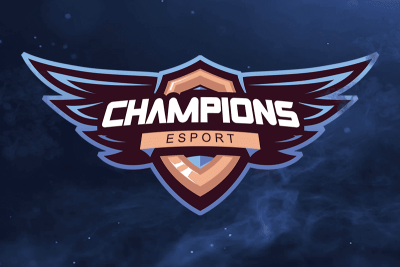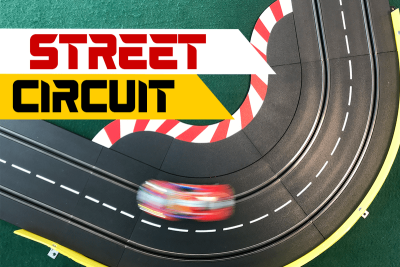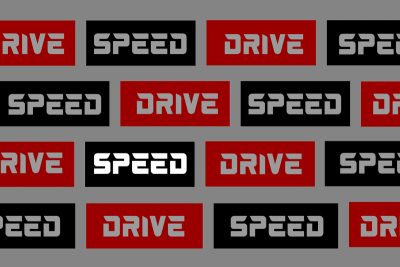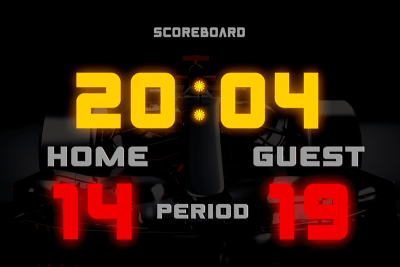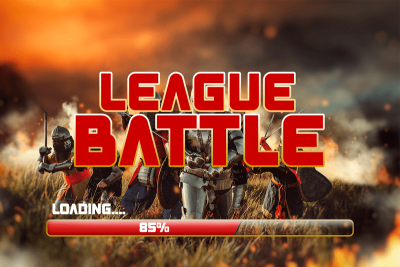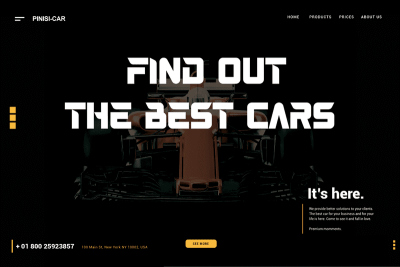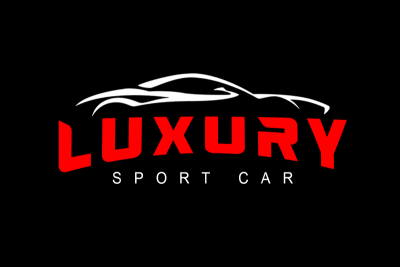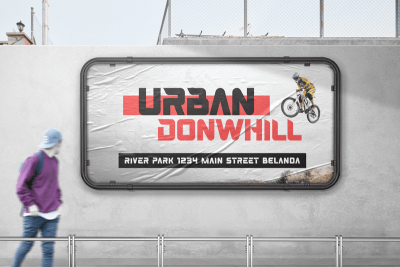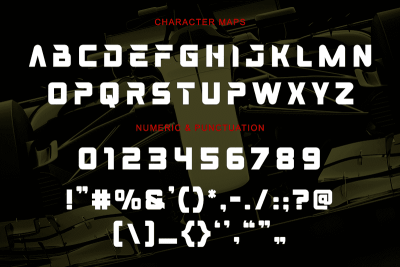
Racing Font BURN RUBBER is a bold and high-energy typeface that captures the adrenaline and speed of the racing world. With its sharp edges, strong geometric structure, and dynamic slant, this font exudes motion and power. Its bold, impactful design immediately grabs attention, making it ideal for projects that demand a striking, sporty look. The heavy, angular letters reflect the raw intensity and competitive spirit of motorsports.
In addition to its commanding presence, BURN RUBBER combines modern aesthetics with racing-inspired elements, making it both versatile and stylish. Its bold shapes and aerodynamic structure enhance readability while adding a sense of speed and momentum. Whether you’re designing for motorsports, gaming, or activewear, this font guarantees a professional and impactful result. Moreover, the vibrant energy in its design makes it perfect for headlines, logos, and branding materials that aim to stand out.
This typeface is not just visually powerful but also highly adaptable. It works seamlessly in both digital and print applications, from sleek automotive ads to action-packed gaming titles. Its timeless yet contemporary appeal ensures your projects remain relevant, no matter the platform.
Racing Font BURN RUBBER is perfect for creatives, designers, and brands looking to emphasize speed, power, and boldness in their projects. Here are the key markets and uses for this typeface:
- Motorsport Teams and Events
BURN RUBBER is the ideal choice for motorsport logos, race banners, and event branding. Its bold and angular design mirrors the intensity of the racing world. Additionally, it ensures maximum impact and visibility on merchandise, posters, and trackside displays. - Automotive Brands and Products
Automotive manufacturers and accessory brands can leverage BURN RUBBER for its modern, sporty feel. Itโs perfect for product packaging, dealership branding, and high-performance car advertisements, highlighting innovation and speed. - Gaming and Esports
This font fits seamlessly into the gaming world, especially for racing and action genres. Use it for game titles, promotional materials, and in-game UI elements to create a thrilling visual experience for players. - Activewear and Sports Brands
Sportswear brands can use BURN RUBBER to emphasize energy, strength, and performance. Its dynamic design is perfect for athletic campaigns, team uniforms, and fitness gear packaging. - Entertainment and Media
BURN RUBBER works well for high-energy entertainment projects such as action movies, racing shows, or commercials. Its bold style ensures your visuals leave a lasting impression on audiences.